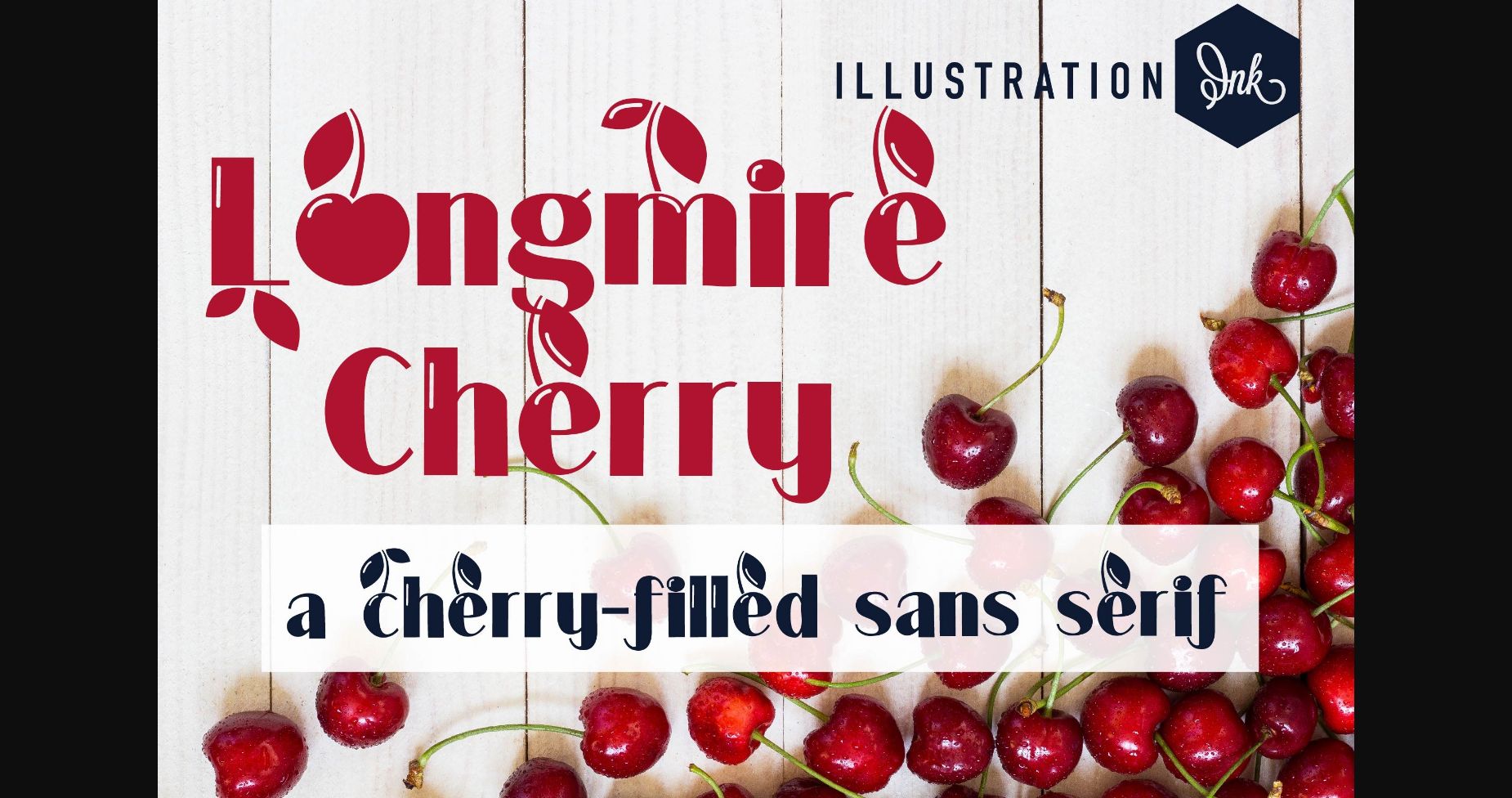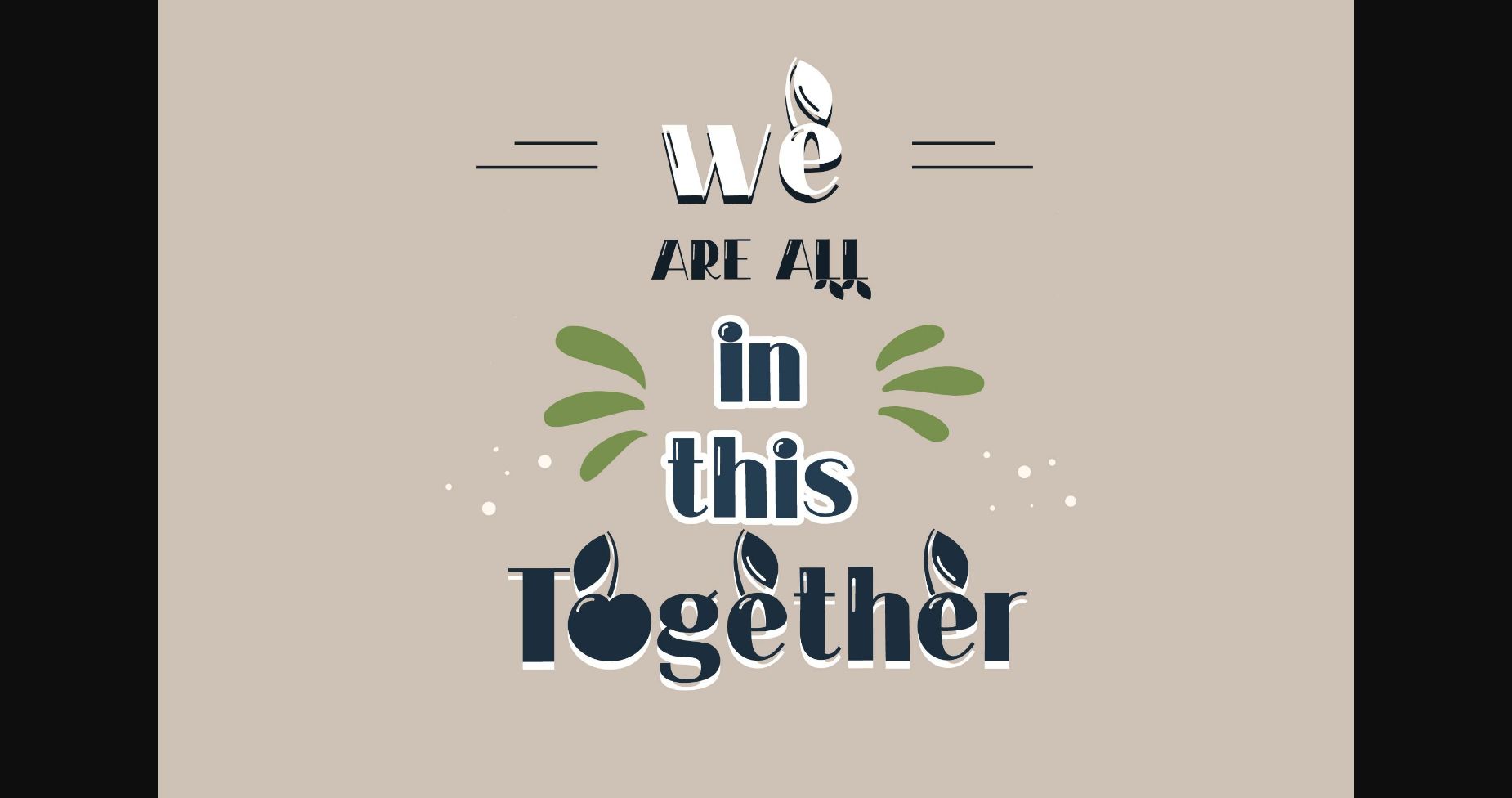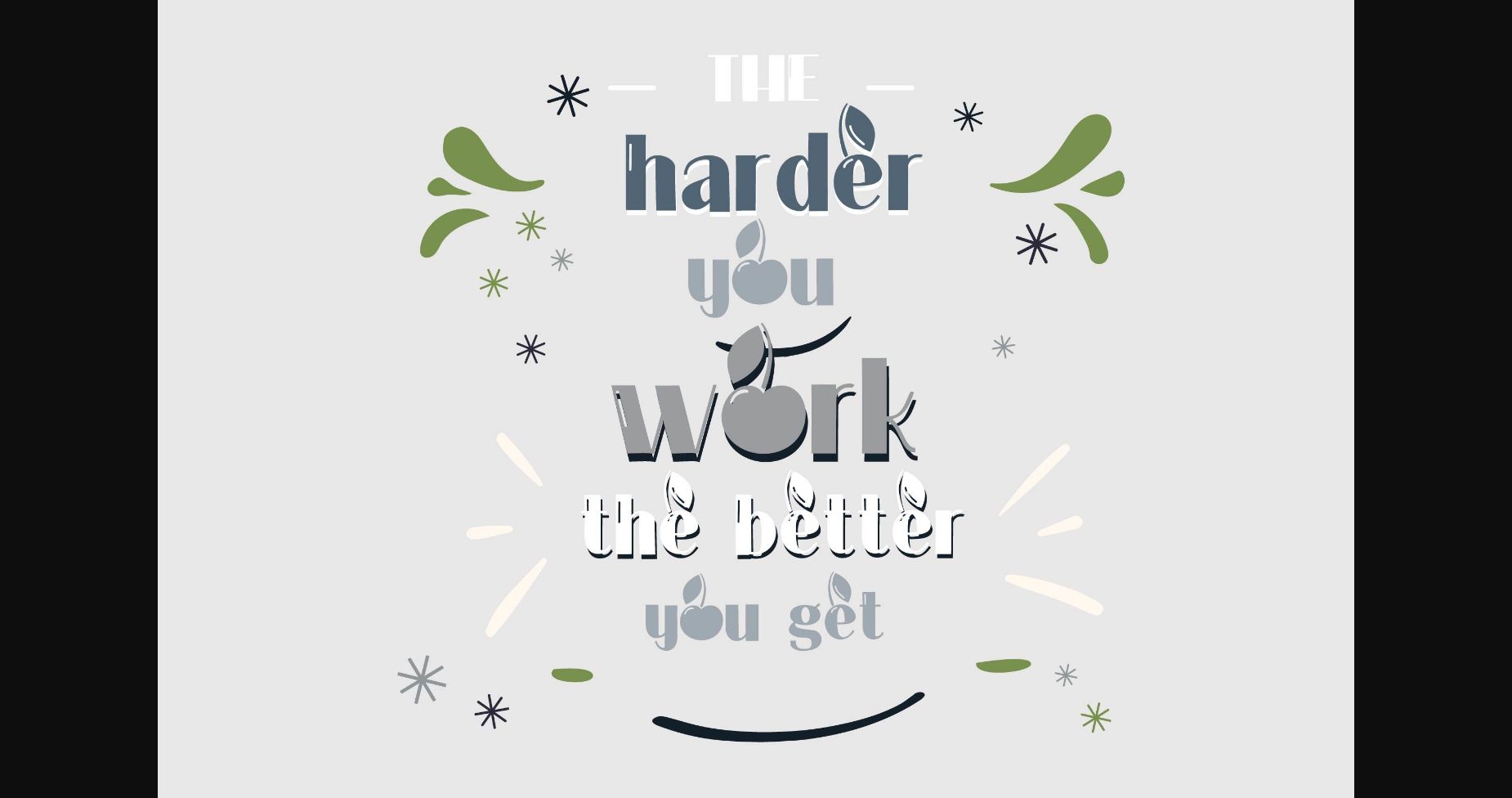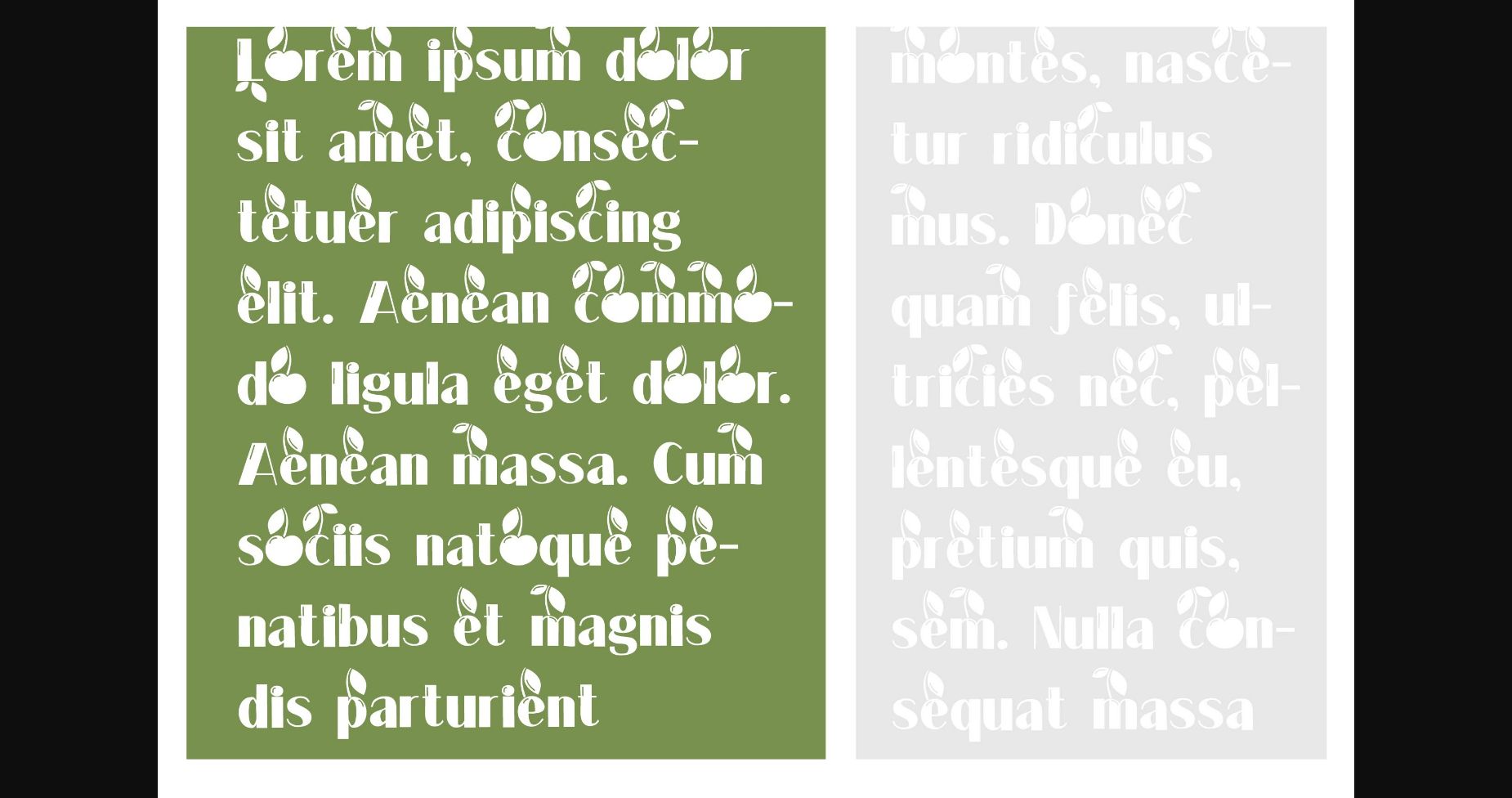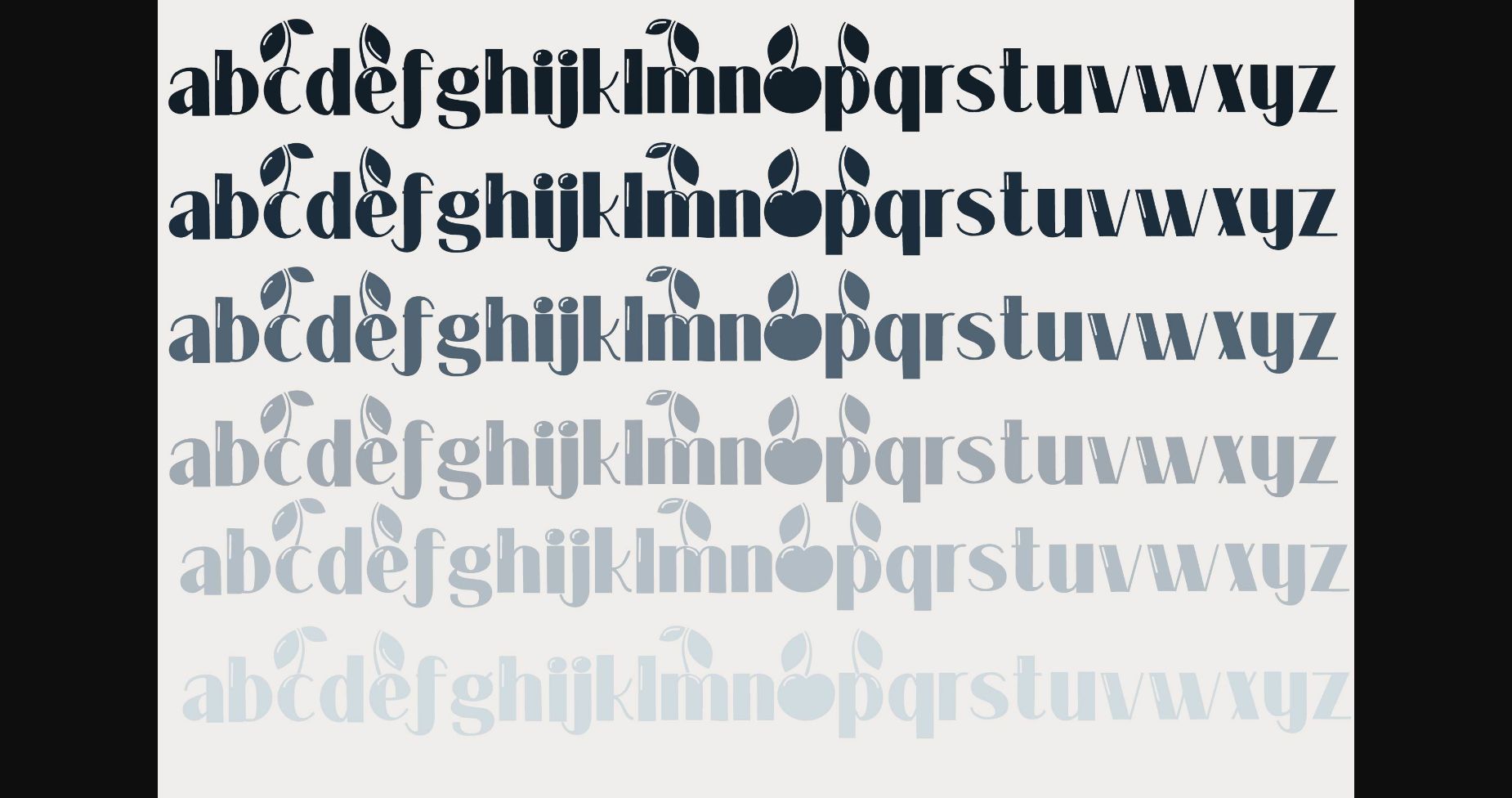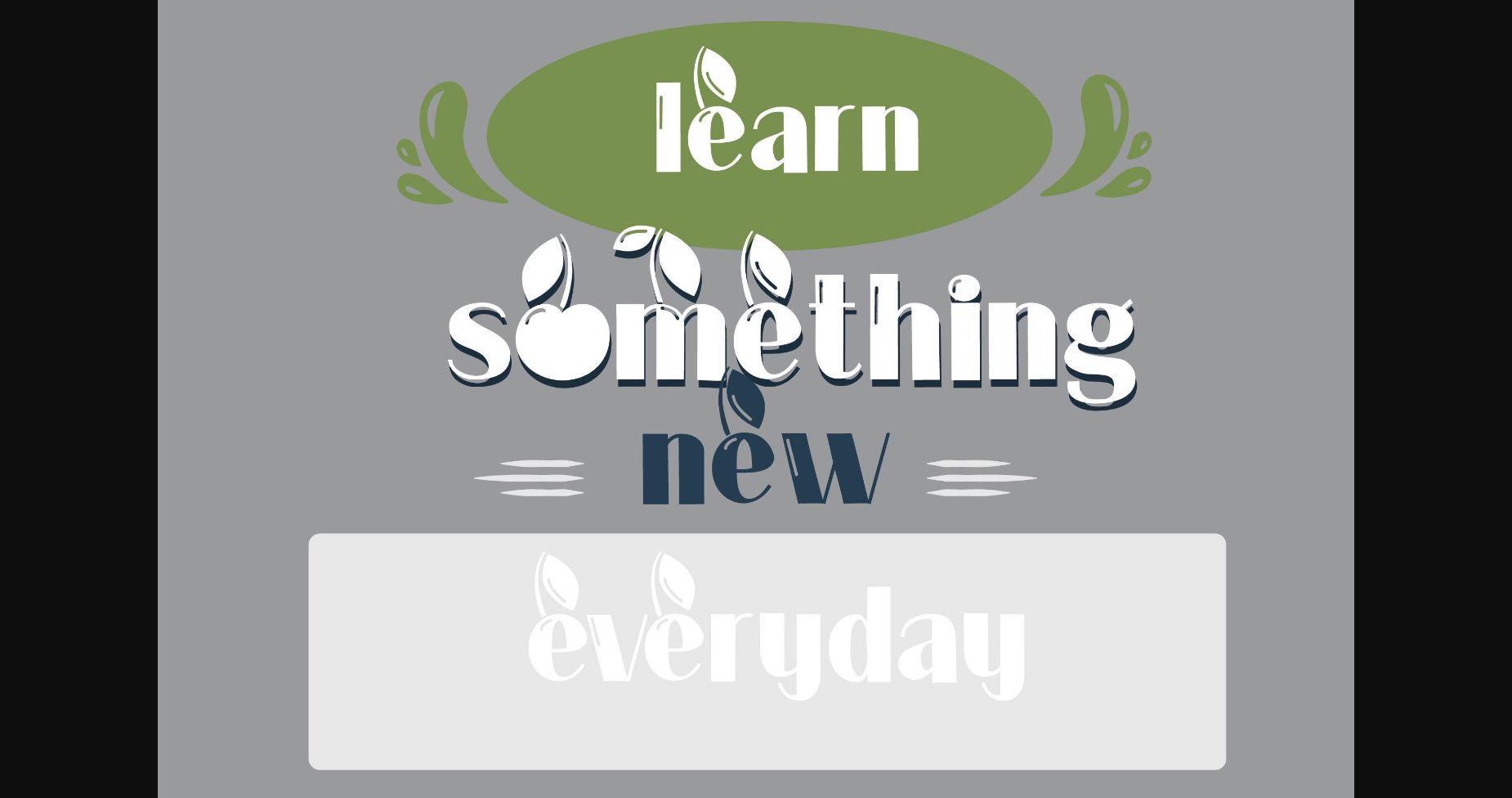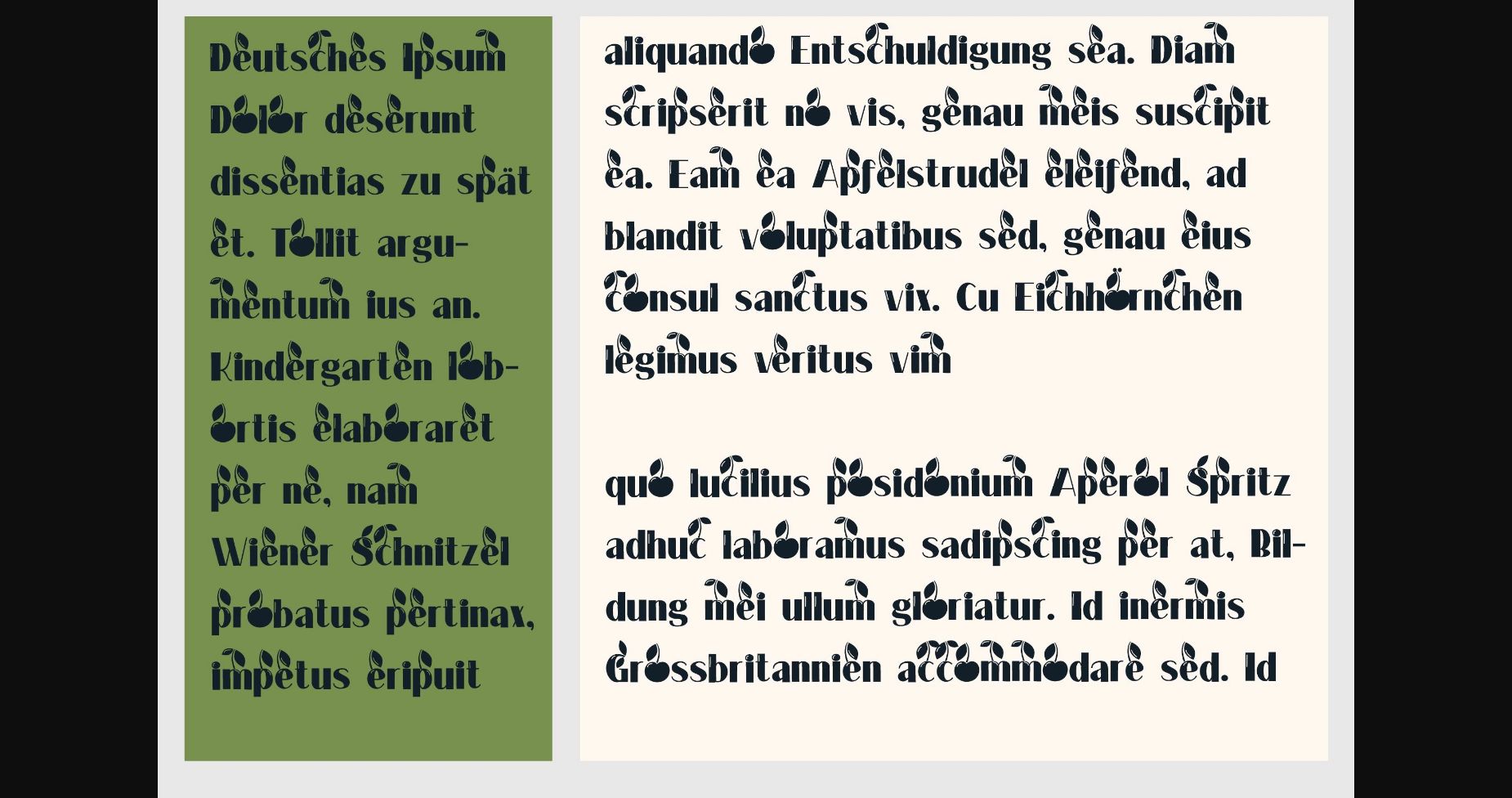
Longmire Cherrry Font
About Longmire Cherrry Font
Longmire Cherry is a delightful and lively sans serif font that bursts with charm. With its playful curves and bold strokes, this font exudes a sense of joy and creativity. Perfect for eye-catching headlines, logo designs, and social media graphics, Longmire Cherry adds a sweet and cheerful touch to any project, making it truly stand out from the crowd.